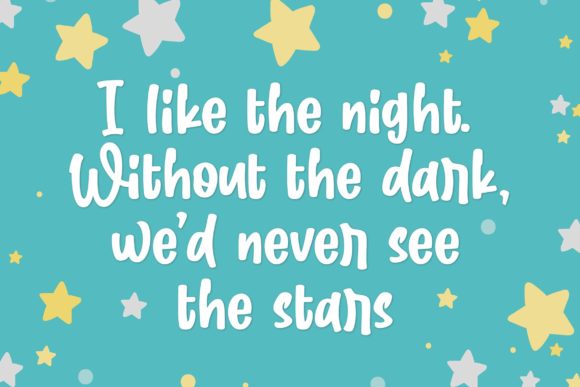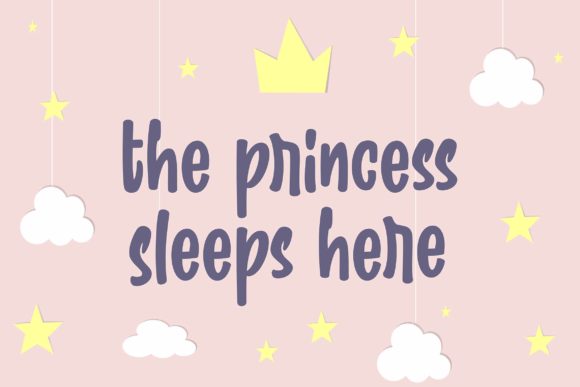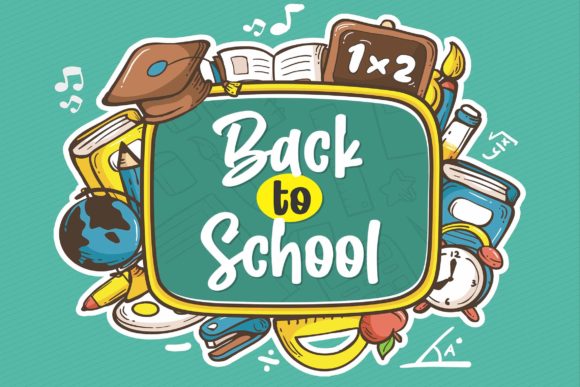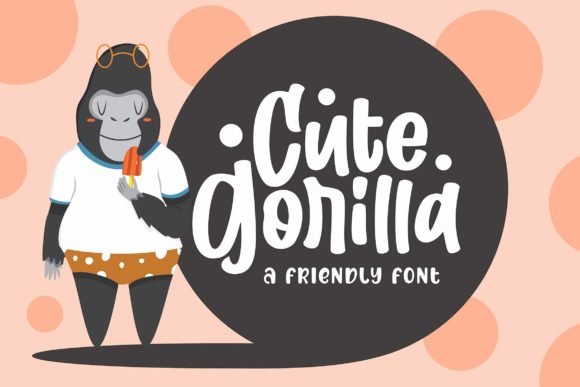
Introduction to Cute Gorilla Font
Cute Gorilla is a cheerful and friendly handwritten font.
It will elevate a wide range of design projects to the highest level, be it branding, headings, wedding designs, invitations, signatures, logos, labels, and much more .
Cute Gorilla Font offers exceptional quality and versatility, making it a valuable addition to your design toolkit. Whether you’re creating for personal projects or commercial use, Cute Gorilla Font delivers professional results.